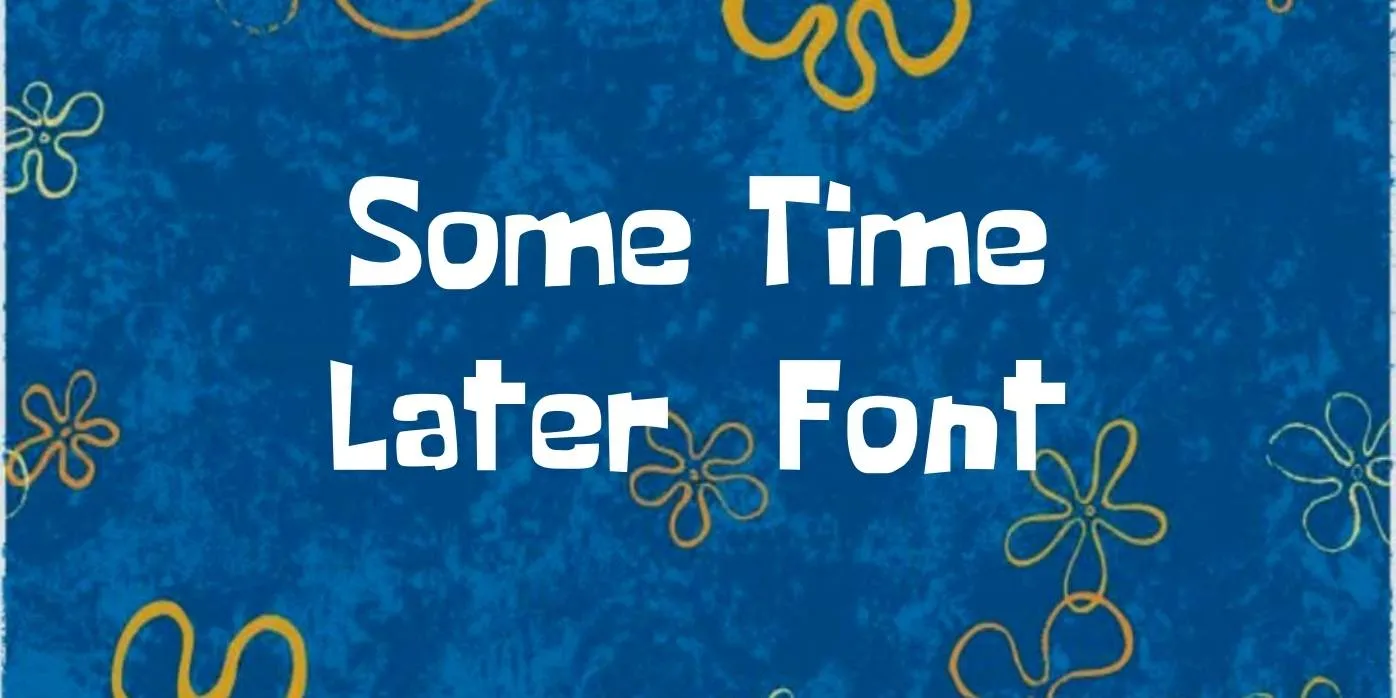
Some Time Later Font
Some Time Later Font belongs to the display font family. This typeface was developed and published by Fredrick Brennan. It was released in 2019. The font style is available in uppercase, lowercase, and web fonts.
The character set supports international languages. This typeface is perfect for headlines, branding, and titles. The Some Time Later Font has a unique design that makes it stand out from other fonts. The font is inspired by the work of late 19th-century French-type designers.